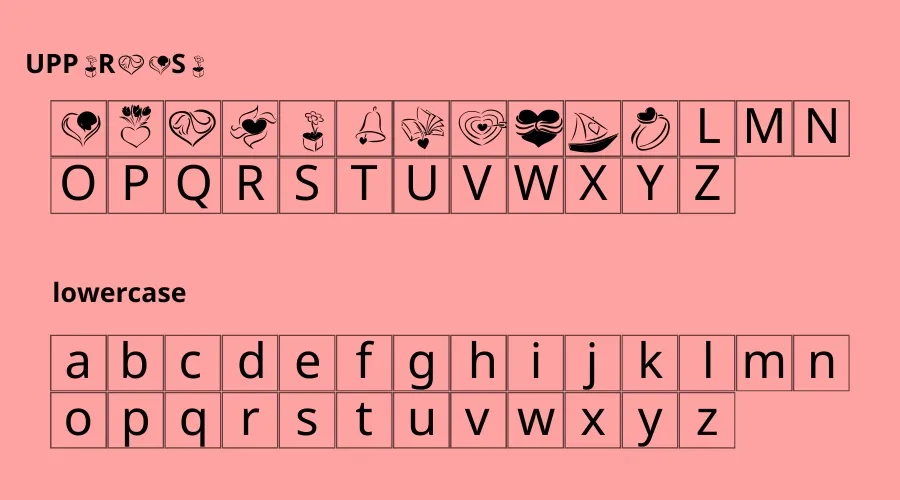
About KR Cuori Divertenti 2 Font
The characters of the KR Cuori Divertenti 2 Font are very different from other fonts. This font is under the category of the holiday or dingbats family. The KR Cuori Divertenti 2 texture is a free typeface that was developed by Kats Fun Fonts with a unique type of structures.
You can easily combine this font with Kurtis Blow Font. The designer utilized this typeface for many types of projects such as for branding, headlines, and other display projects like boxing font. It contains multiple types of styles and weights such as bold, italic, and regular.